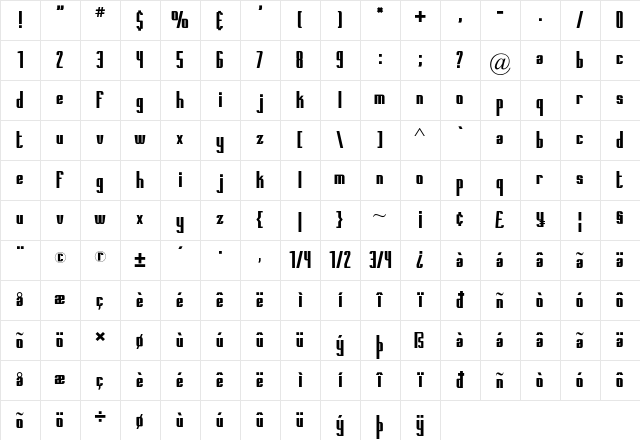
Printed Circuit Board Regular
Printed Circuit Board Family
Design Context for Printed Circuit Board
Printed Circuit Board is a composed and adaptable typeface that performs quietly and consistently across a wide range of design contexts.